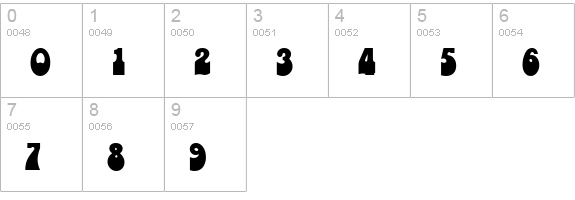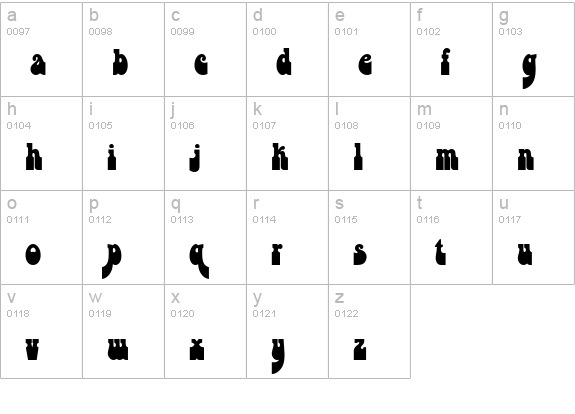
Boyle-Regular Font Details
Boyle-Regular is the standard, neutral variant in the Boyle typeface family \xE2\x80\x94 well suited to general body text, paragraphs, and standard typographic work.
Boyle-Regular is a versatile and modern font that strikes the perfect balance between professionalism and creativity. With its clean lines and elegant curves, this typeface is ideal for a wide range of design projects, from branding to editorial design. The classic yet contemporary look of Boyle-Regular makes it a timeless choice for any design endeavor. Best of all, Boyle-Regular is available for free download at FontsMarket.com. This means that you can easily access this high-quality font without any cost, allowing you to enhance your projects with a sophisticated and polished typographic touch. Don't miss out on the opportunity to elevate your designs with Boyle-Regular – download it today and see the difference it can make in your work.